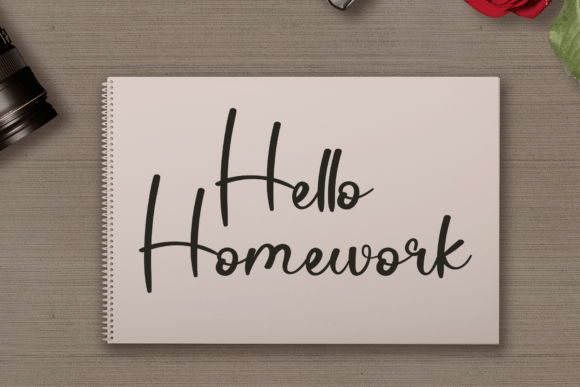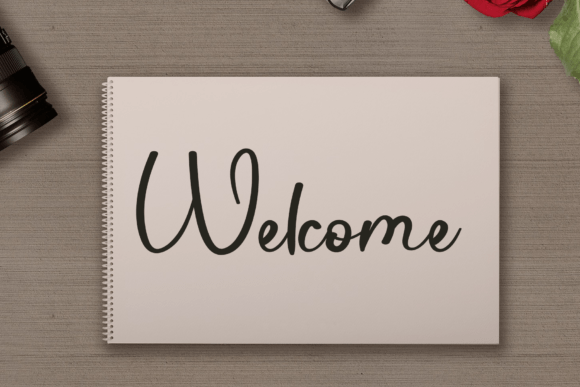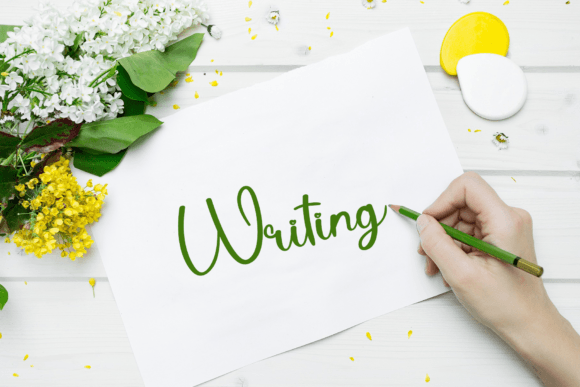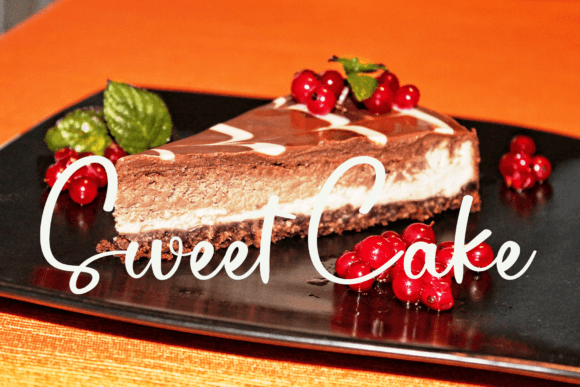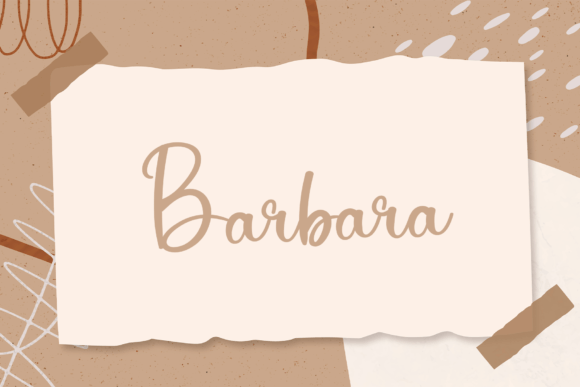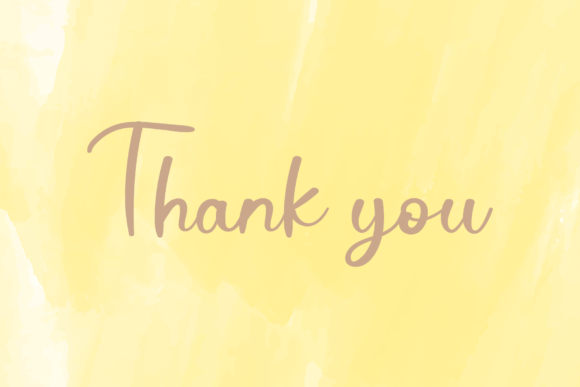
The Perfect Blend of Love and Typography
As a designer, have you ever found yourself stuck on a project, searching for that perfect font to convey the emotions and feelings of the moment? I recall a particular instance when I was working on a wedding invitation design. I wanted to capture the essence of the couple’s love story, and I knew I needed a font that would bring warmth and personality to the design. That’s when I stumbled upon the sweet and friendly Husband Font, and I knew I had found the perfect match.
The Husband Font is a delightful handwritten font that exudes fun and relaxation. It’s ideal for writing wedding invitations, cards, or any other design that requires a lovely touch. As a designer, you’ll find that this font is a valuable addition to your toolkit, allowing you to add a personal and emotive touch to your designs.
Husband Font Key Features
- Unique Characteristics: Husband Font is known for its distinctive, handwritten feel, with subtle imperfections that give it a personal and emotive touch.
- Font Style: The font is available in both regular and italic styles, allowing for a range of creative possibilities.
Husband Font Review
As a designer, I was excited to try out the “Husband Font”, a font designed specifically with humor in mind. From a design standpoint, here are some observations:
- ✨ I appreciate the unique personality and charm of the font, which is sure to bring a smile to the user’s face.
- ✨ The font is well-suited for informal, playful designs, such as social media posts, memes, or even a humorous blog.
- ✨ The font’s irregularities and imperfections add to its character and make it feel more human, which is perfect for a font meant to evoke a sense of humor.
- ⚠️ The font may be too playful or whimsical for more formal designs, such as corporate communications or serious articles.
- ⚠️ Some users may find the font too distracting or overwhelming, especially in large blocks of text.
- ⚠️ The font’s irregularities may make it challenging to read for some users, particularly those with vision impairments.
Overall, I think the “Husband Font” is a great addition to any designer’s toolkit, especially for projects that require a lighthearted or humorous tone. While it may not be suitable for every project, its unique personality and charm make it a valuable asset for designers looking to add some humor to their designs.
Tips for Getting the Most Out of Husband Font
For optimal results, use the Husband Font in a playful and casual context, such as:
- Personalized gift messages
- Wedding invitations
- Humorous memes
Remember to adjust the font size and style to match your design’s tone and aesthetic.
The Husband Font is ideal for:
- Expressing love and appreciation
- Adding a touch of humor to your designs
- Creating unique and memorable graphics
Experiment with the Husband Font in your next design project and see the impact it can have!